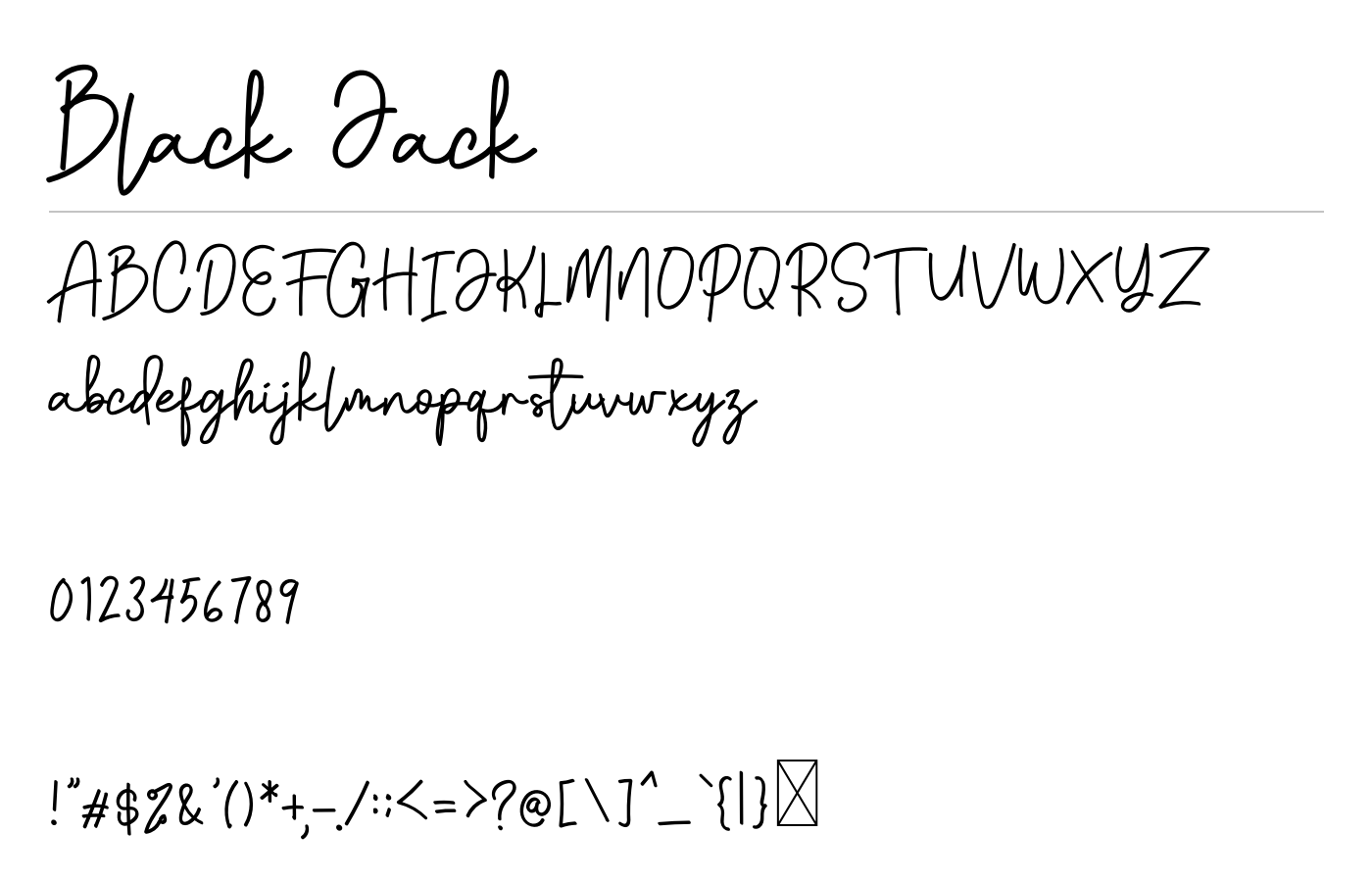
Black Jack is a casual, handwritten script font with a friendly and informal vibe. Its thin, slightly uneven strokes and natural flowing letterforms give it a personal, approachable feel, making it perfect for creative branding, invitations, and relaxed editorial designs. This font works especially well for projects that want to convey warmth and personality without looking too polished or formal.
Black Jack Font
About Black Jack Font